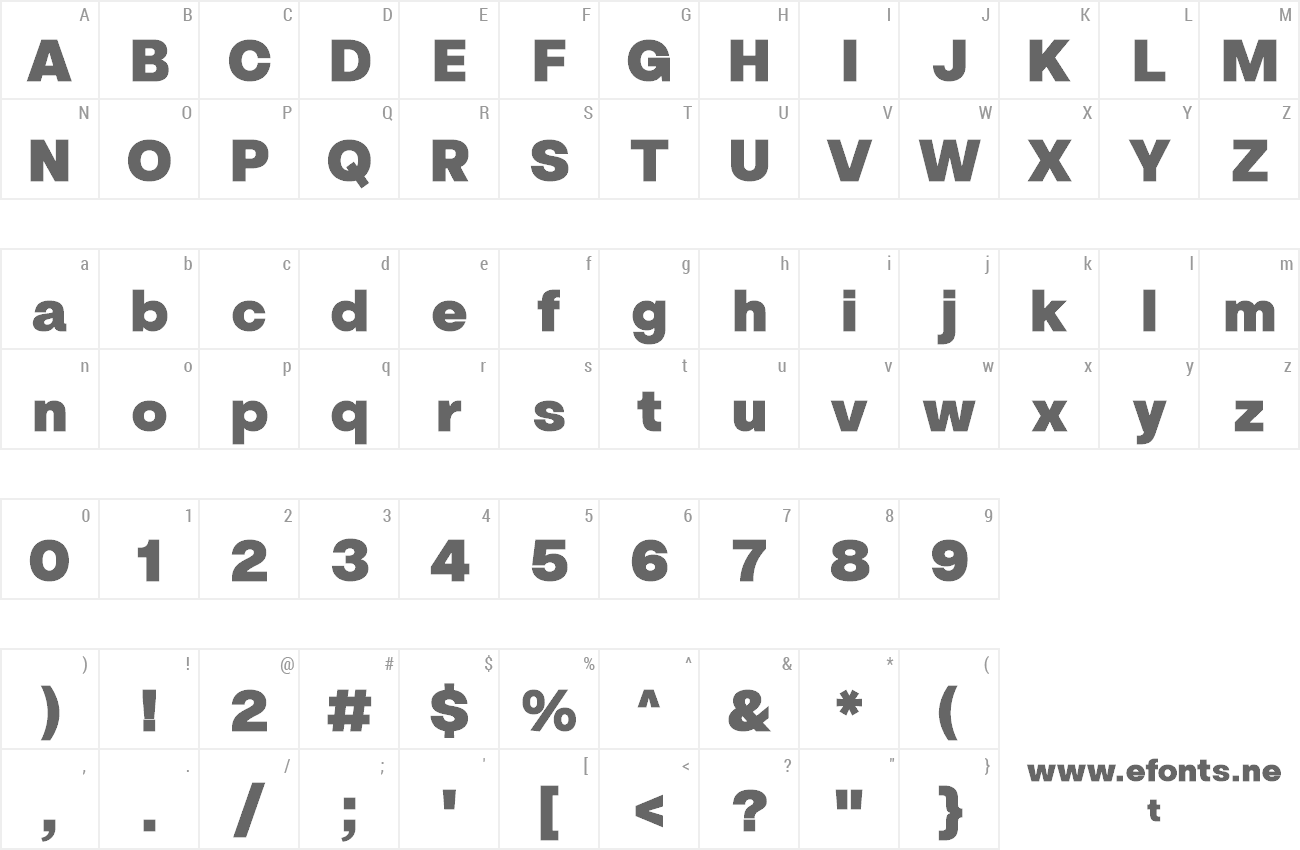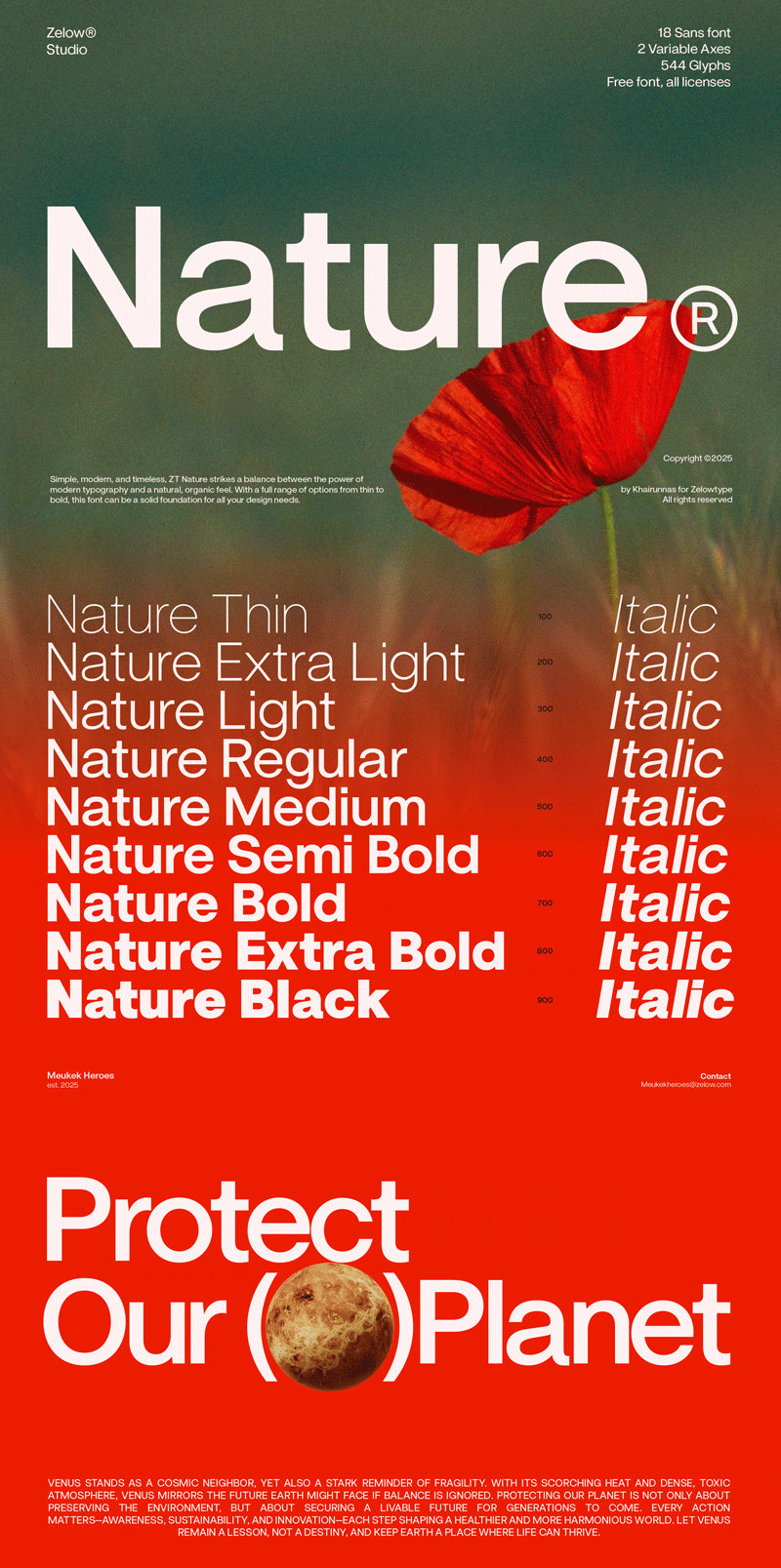
Preview and download ZT Nature Font. Created by Zelow Type in Basic Sans serif styles with 100% Free license.
ZT Nature is a modern sans serif that combines geometric precision with an organic sense of rhythm. Developed to function across both print and digital environments, it offers clarity, neutrality, and adaptability without losing its unique character. Designed for designers who value consistency and flexibility, ZT Nature serves as a reliable typographic tool for contemporary communication. Donation are very appreciated. Paypal account for donation : https://paypal.me/khaiuns Contact Us: Questions or inquiries? Don't hesitate to connect with us at: selowtype@gmail.com. Discover the full font family and claim your free fonts for commercial use on our official website: https://zelowtype.gumroad.com/l/ztnature?layout=profile Thank you for being part of our creative community. Let's design amazing things together! Warm regards, Zelowtype |